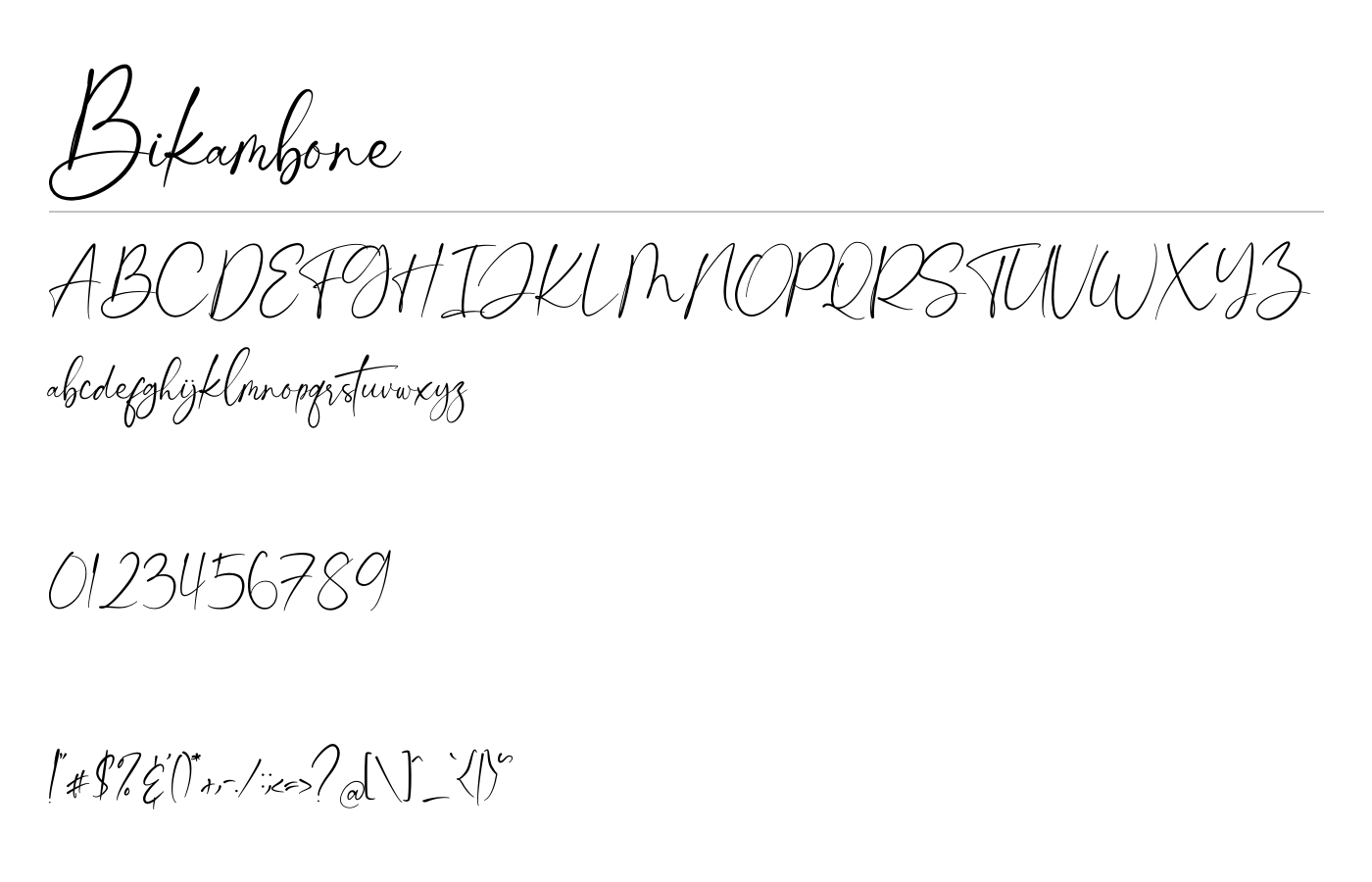
Bikambone is a delicate, elegant script font characterized by its slender, flowing strokes and handwritten charm. Its thin, airy letterforms with high contrast and fluid connections give it a graceful, personal touch, making it ideal for feminine branding, invitations, and creative projects seeking a sophisticated yet approachable feel. This font works beautifully in logos, headlines, and decorative text where a refined and artistic style is desired.
Bikambone Font
About Bikambone Font
| Font family | Bikambone Font |
| Designer | Abdul Azis |